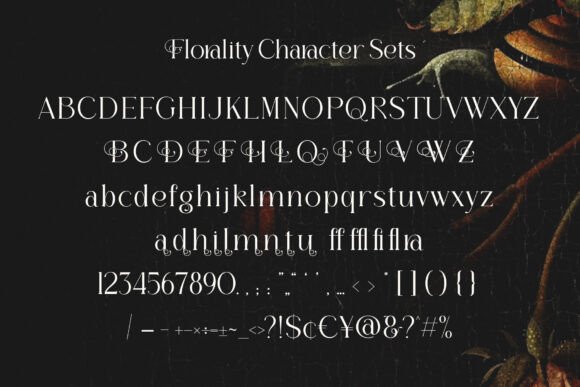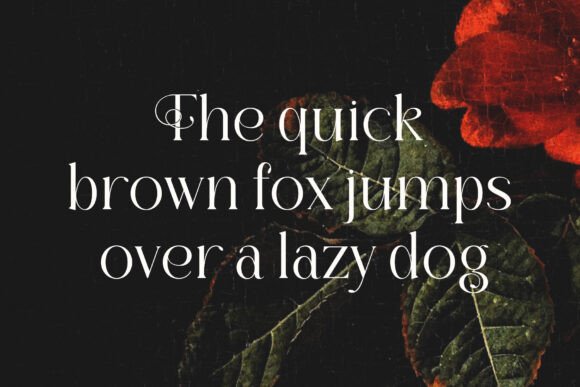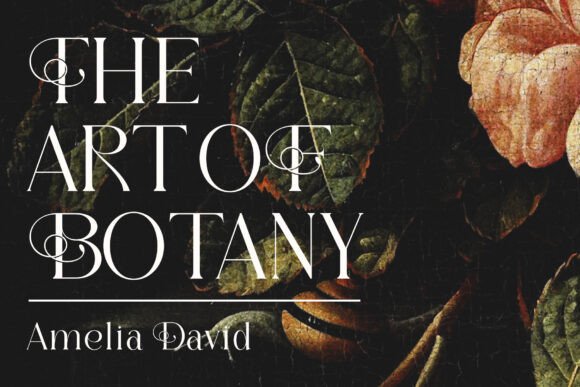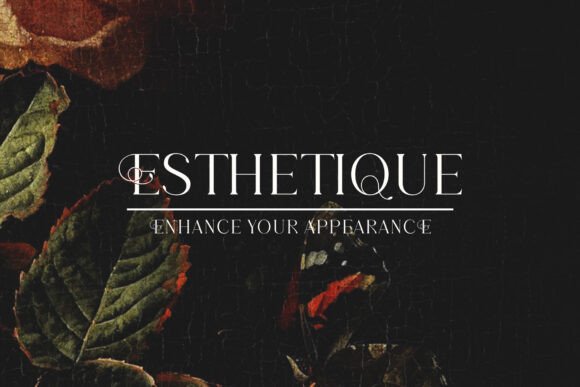
Discover the Elegance of Florality Font: A Modern Serif for Creative Projects
I’ll never forget the time I was working on a wedding invitation design project, and my client asked for a font that was both elegant and modern. I scoured the internet, trying out font after font, but nothing seemed to fit the bill. That was until I stumbled upon Florality, a beautiful modern serif font that instantly captured the essence of the project. In this article, I’ll share my experience with Florality, its features, and how to make the most of it in your designs.
A Personal Review of Florality Font
What I Love About Florality ✨
- 💫 Elegant and modern serif design that’s perfect for high-end projects
- ✅ Highly versatile and adaptable to various design needs, from branding to social media posts
- 🎉 Wide range of OpenType features, glyphs, and stylistic alternates for added creativity
- 📚 Extensive language support for global designs
While Florality is an excellent font, there are a few minor quirks to be aware of:
- 🤔 Some users may find the font’s x-height a bit too high for certain design applications
- ⚠️ Limited availability of condensed or extended versions, which might limit its use in certain layouts
- Experiment with OpenType features, such as ligatures and stylistic alternates, to add a personal touch to your design
The Backstory of Florality Font
Florality was designed by a team of typographers who aimed to create a modern serif font that would cater to the needs of creative professionals. Inspired by the beauty of flowers and the elegance of traditional serif fonts, they crafted a font that is both refined and versatile.
Q: What is the primary use of Florality font?
A: Florality is a versatile font suitable for various design projects, including branding, logos, social media posts, advertisements, labels, product packaging, and more.
Q: Does Florality support OpenType features?
A: Yes, Florality features a range of OpenType features, including ligatures, stylistic alternates, and glyphs, allowing for added creativity and customization.
Q: Is Florality suitable for body text?
A: While Florality is an elegant font, its x-height and line spacing make it more suitable for headings and titles. However, it can be used for body text in certain design applications, such as editorials or luxury publications.